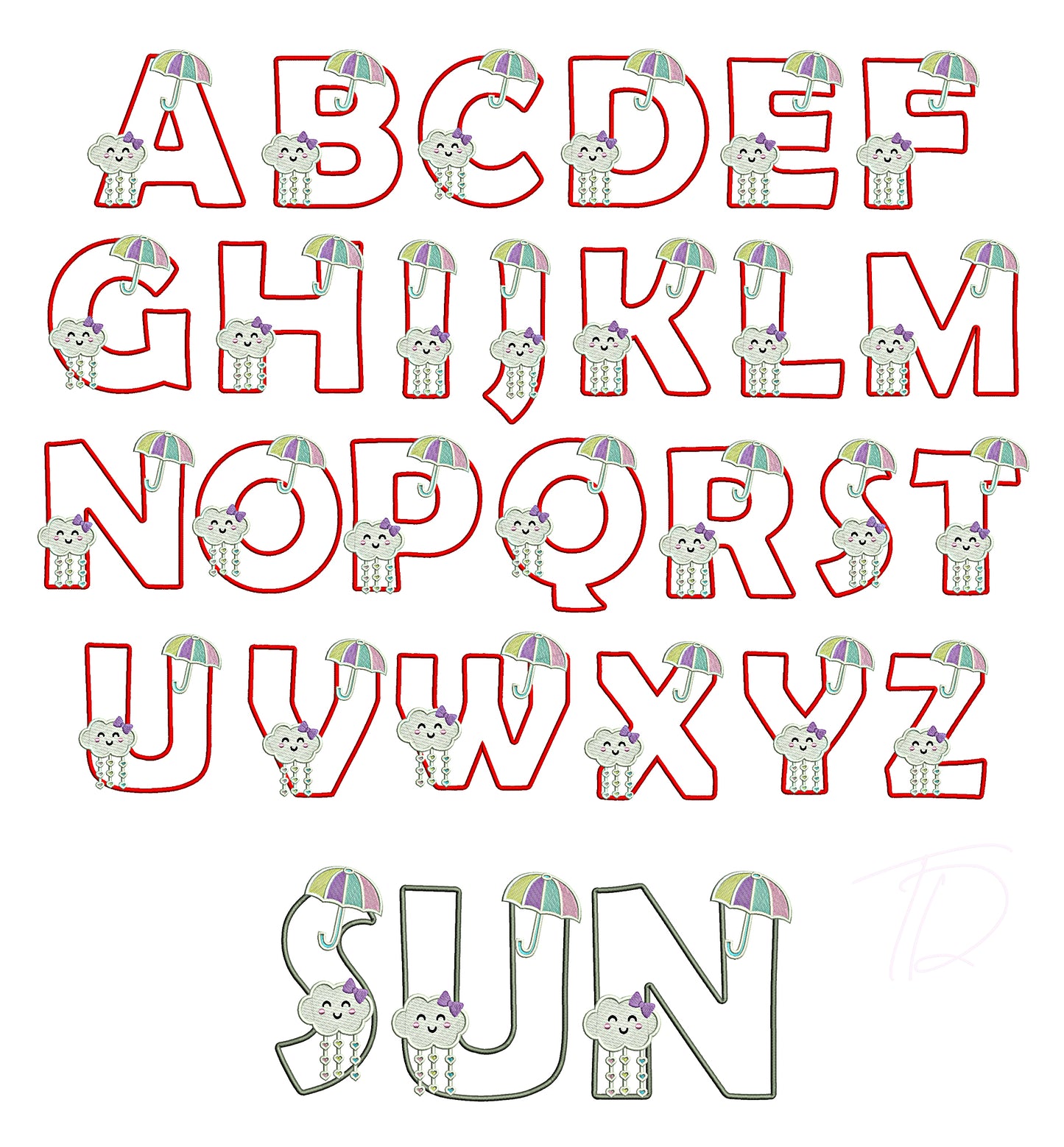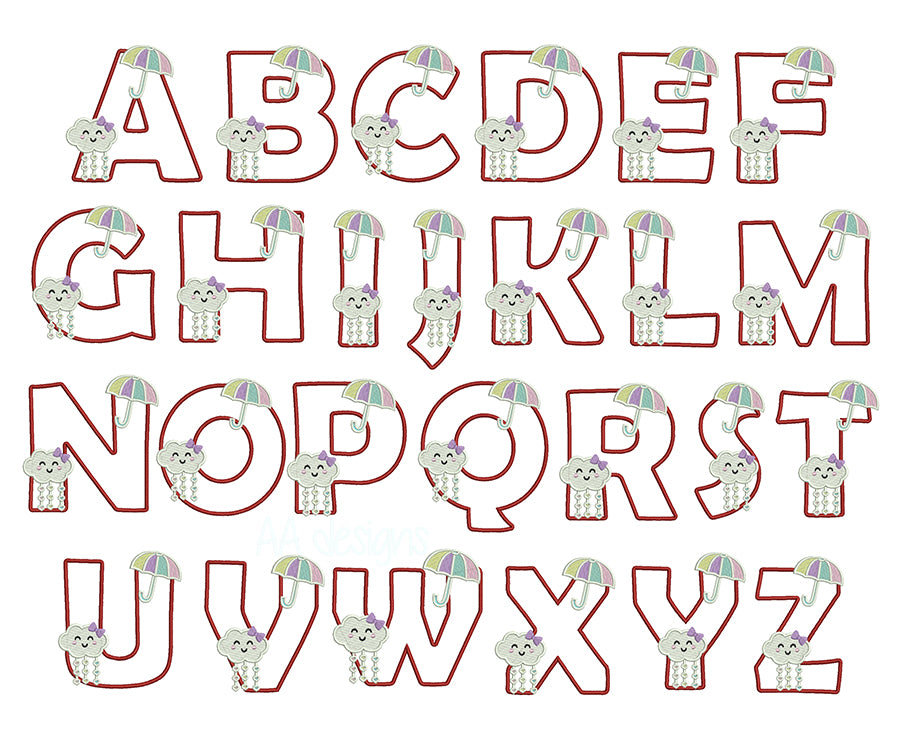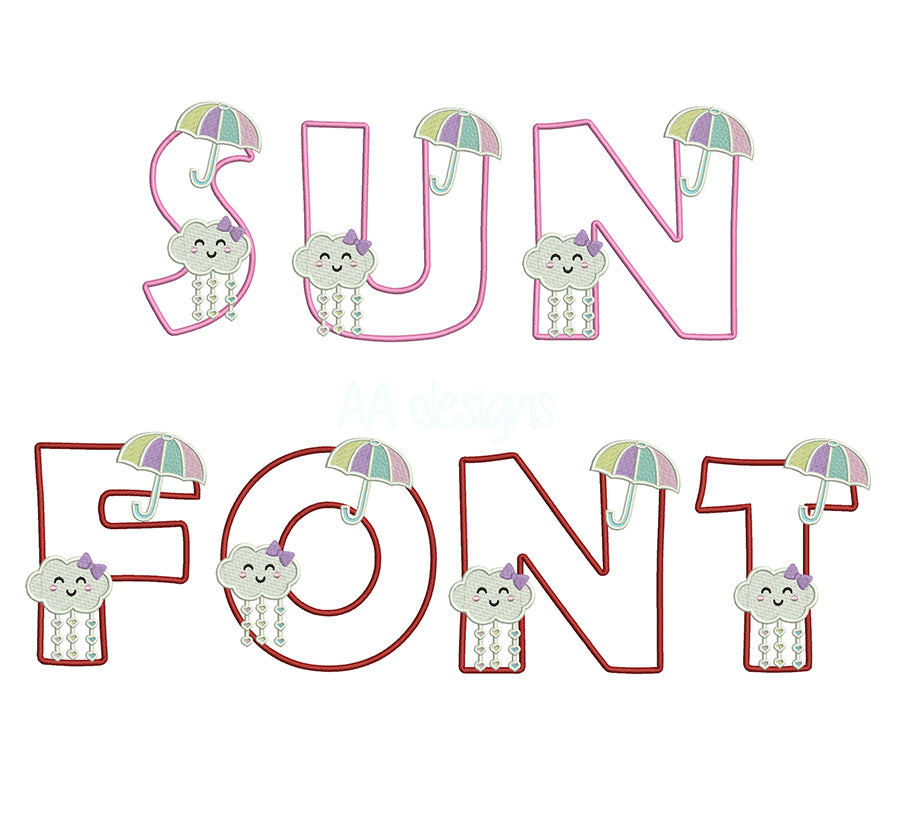
Sun Baby Applique Embroidery Font
Brighten every little moment with our Sun Baby Applique Embroidery Font — a soft, cheerful alphabet adorned with sweet sun-inspired design elements, built for applique machine embroidery. Warm, gentle, and full of sunshine, this font is made for the tiniest members of the family.
- Applique-style construction for a soft, dimensional finish with lower stitch count
- Gentle, rounded letterforms with adorable sun-themed accents — sweet and soothing
Whether you're personalizing a newborn gift set, decorating a nursery, or creating a handmade keepsake for a baby shower, this font radiates warmth and love in every single stitch.